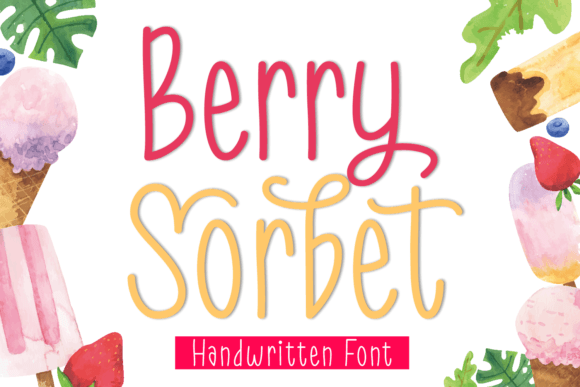
The Whimsical World of Berry Sorbet Font
I’ll never forget the design project that led me to discover the enchanting Berry Sorbet font. I was working on a children’s book, and my client requested a font that would transport young readers to a magical world. As I scoured the internet for the perfect font, I stumbled upon Berry Sorbet, and it was love at first sight! ✨
A Personal Review of Berry Sorbet
So, what makes Berry Sorbet so special? Let’s dive into the good stuff! 😊
• ✨ Whimsical and playful: Berry Sorbet’s handwritten style is perfect for projects that require a touch of personality and whimsy.
• ✅ Thin and tall style: The font’s unique proportions make it stand out from more traditional fonts.
• 💫 Magical and enchanting: Berry Sorbet’s charm is sure to captivate audiences and add a touch of magic to your designs.
While Berry Sorbet is an amazing font, it’s not perfect. Here are a few things to keep in mind:
• ⚠️ Legibility at small sizes: Berry Sorbet can be a bit tricky to read at very small sizes, so make sure to test it before finalizing your design.
• 🤔 Limited use in formal contexts: Due to its playful nature, Berry Sorbet might not be the best fit for formal projects or professional documents.
The Story Behind Berry Sorbet
The story behind Berry Sorbet’s creation is shrouded in mystery, but it’s said that the font’s designer was inspired by the magical world of children’s literature. With a passion for typography and a love for whimsy, they crafted Berry Sorbet to bring a touch of enchantment to designs.
Q: Is Berry Sorbet suitable for body text?
A: While Berry Sorbet is a beautiful font, it’s best suited for headlines, titles, and short paragraphs. For body text, a more traditional font might be more readable.